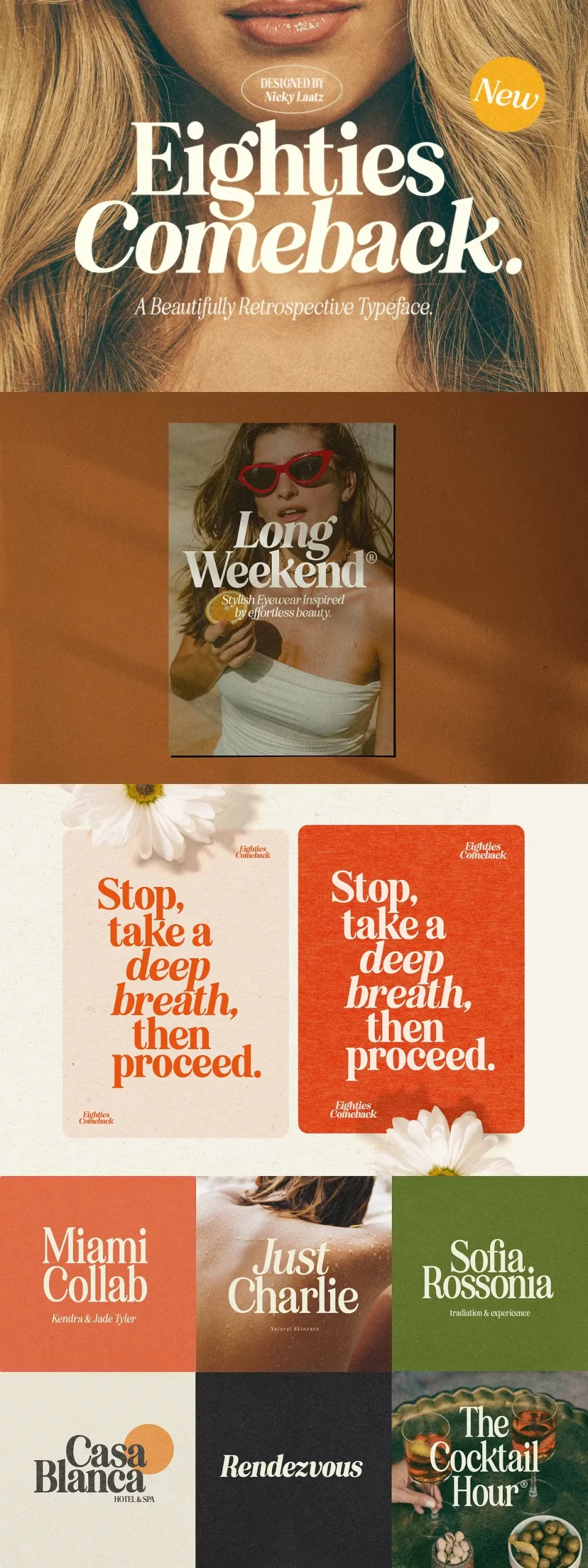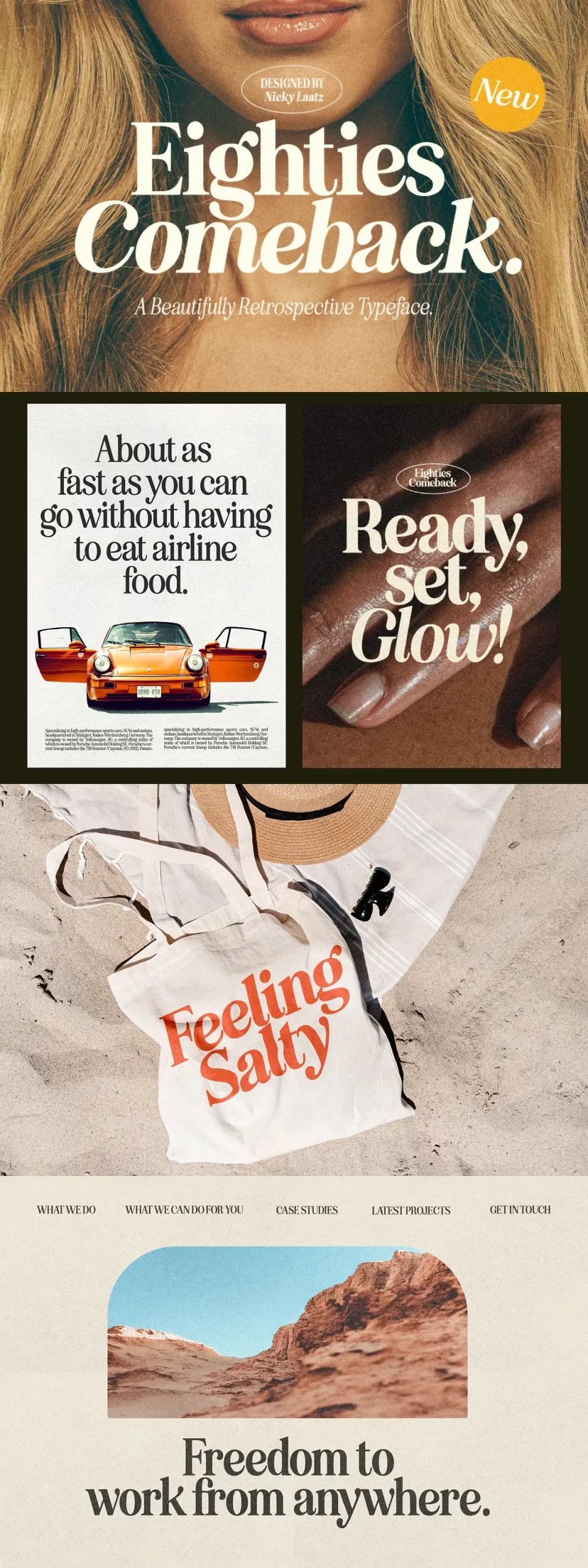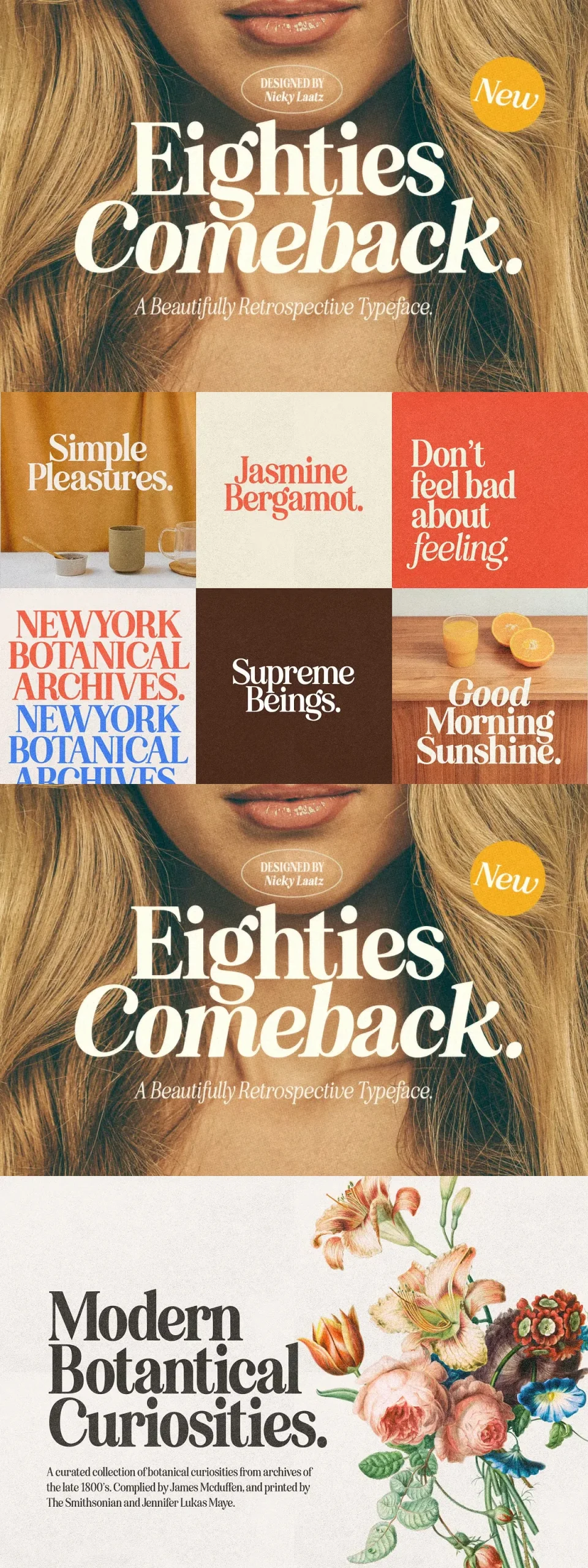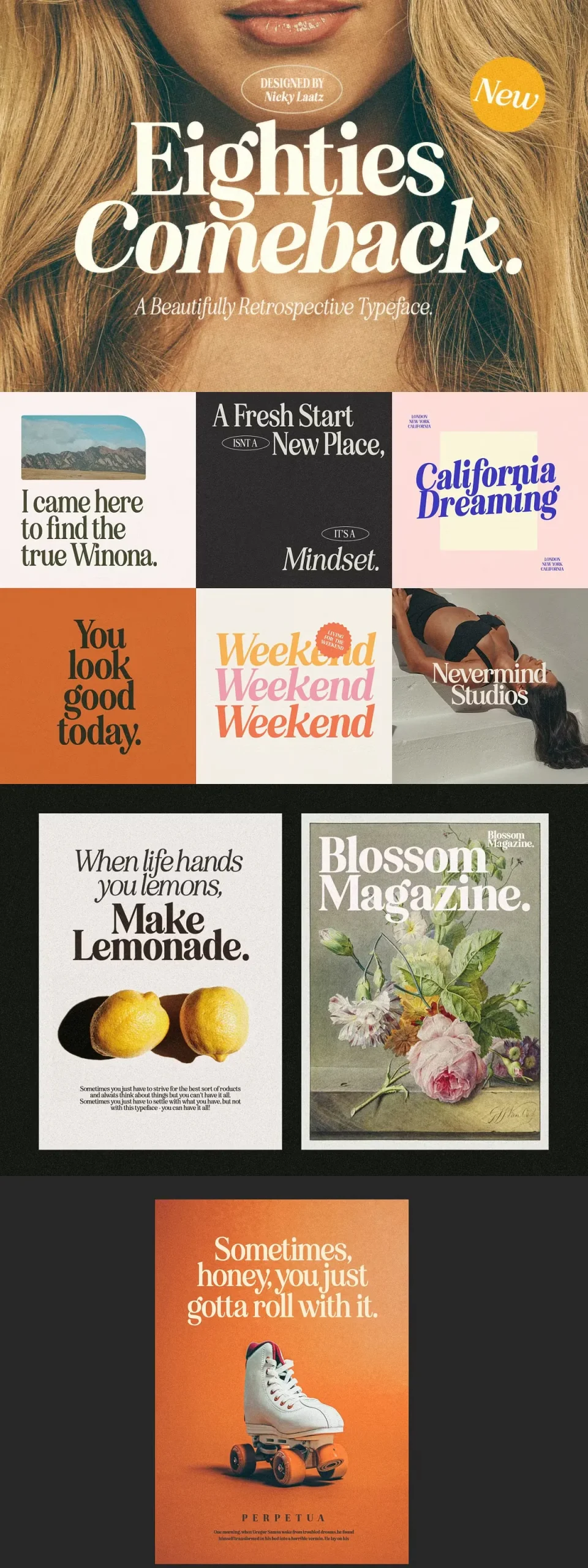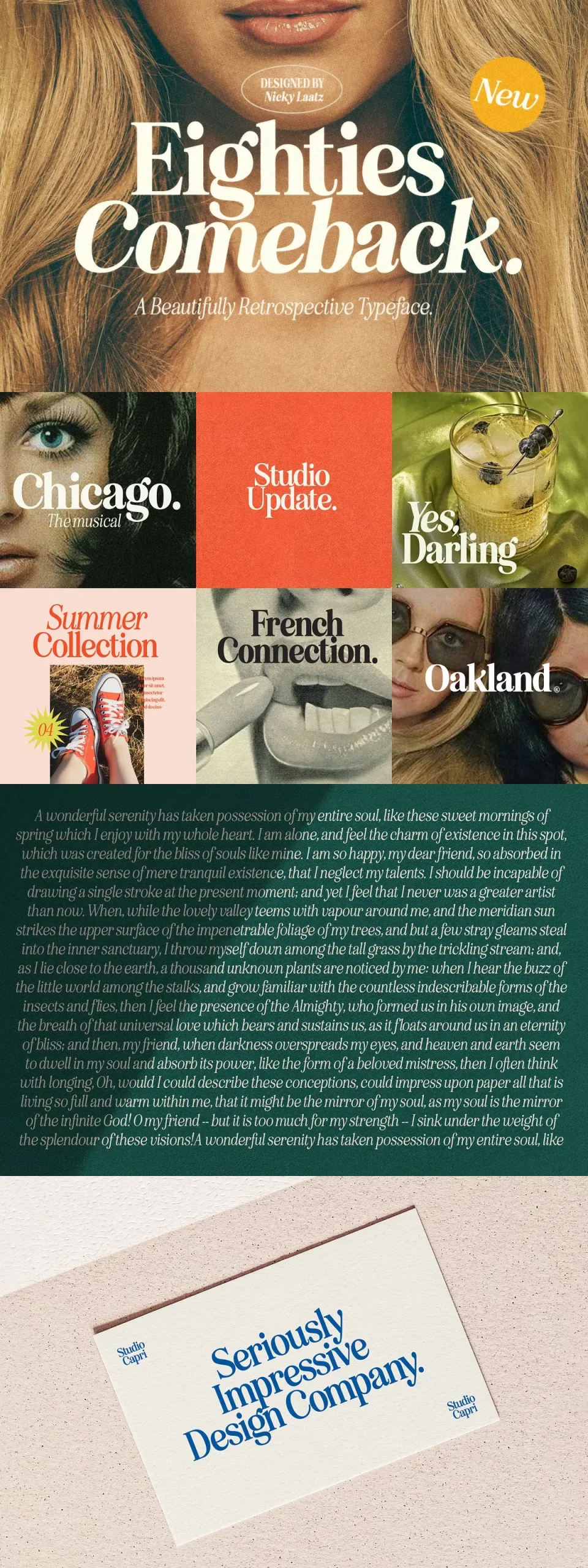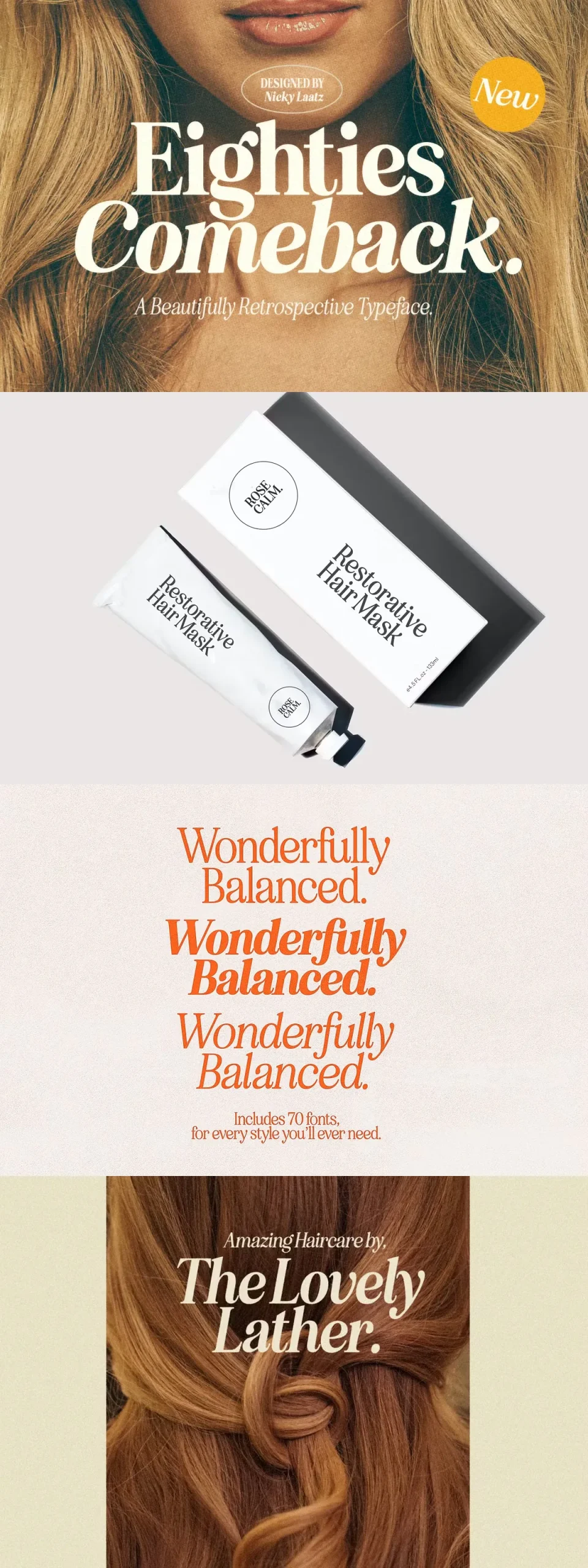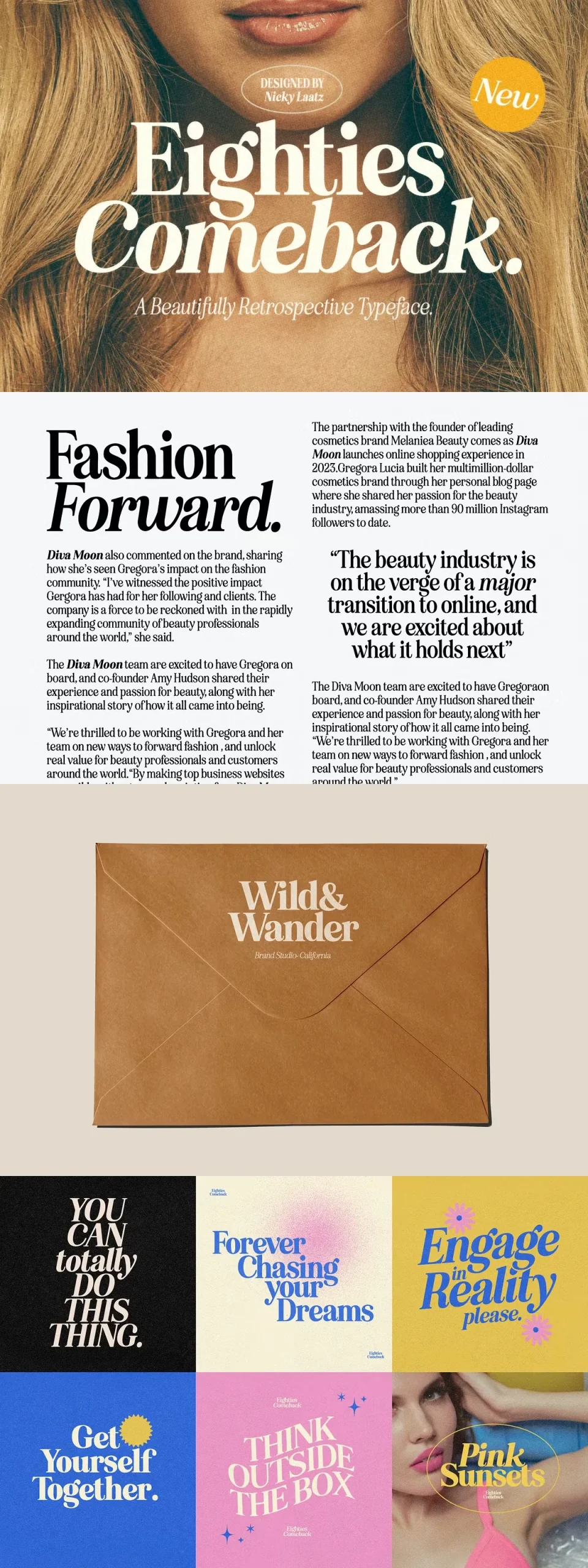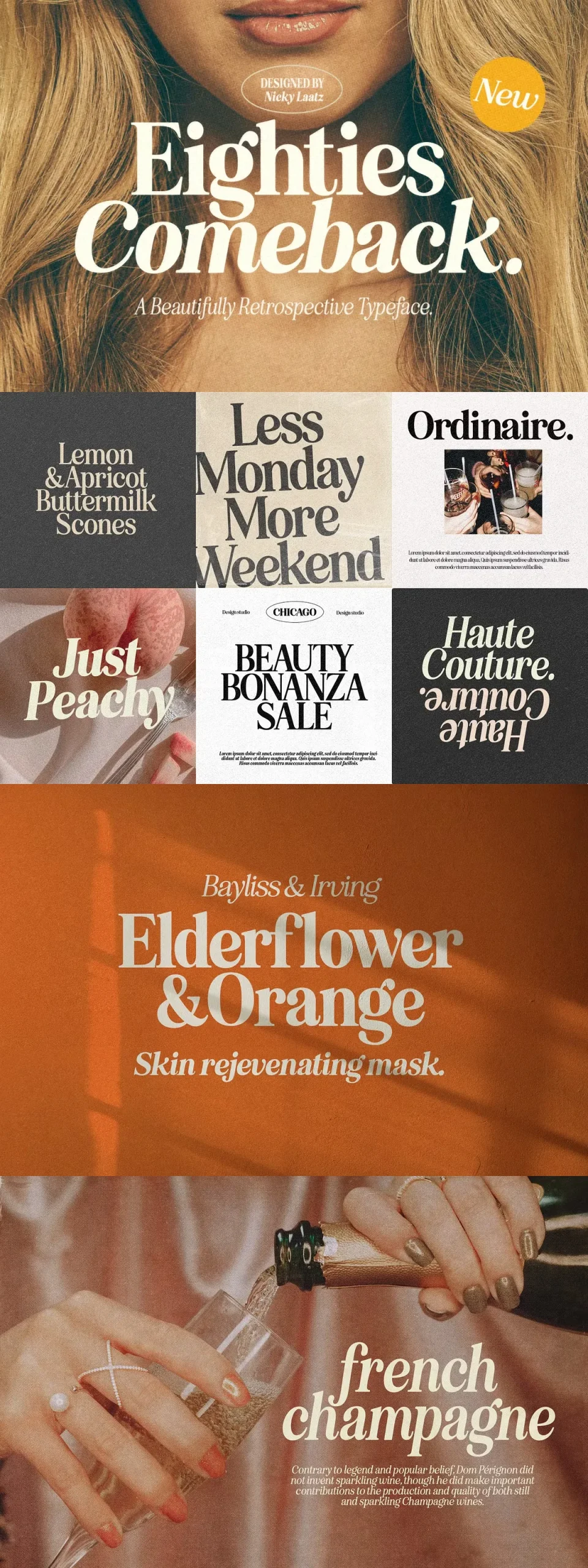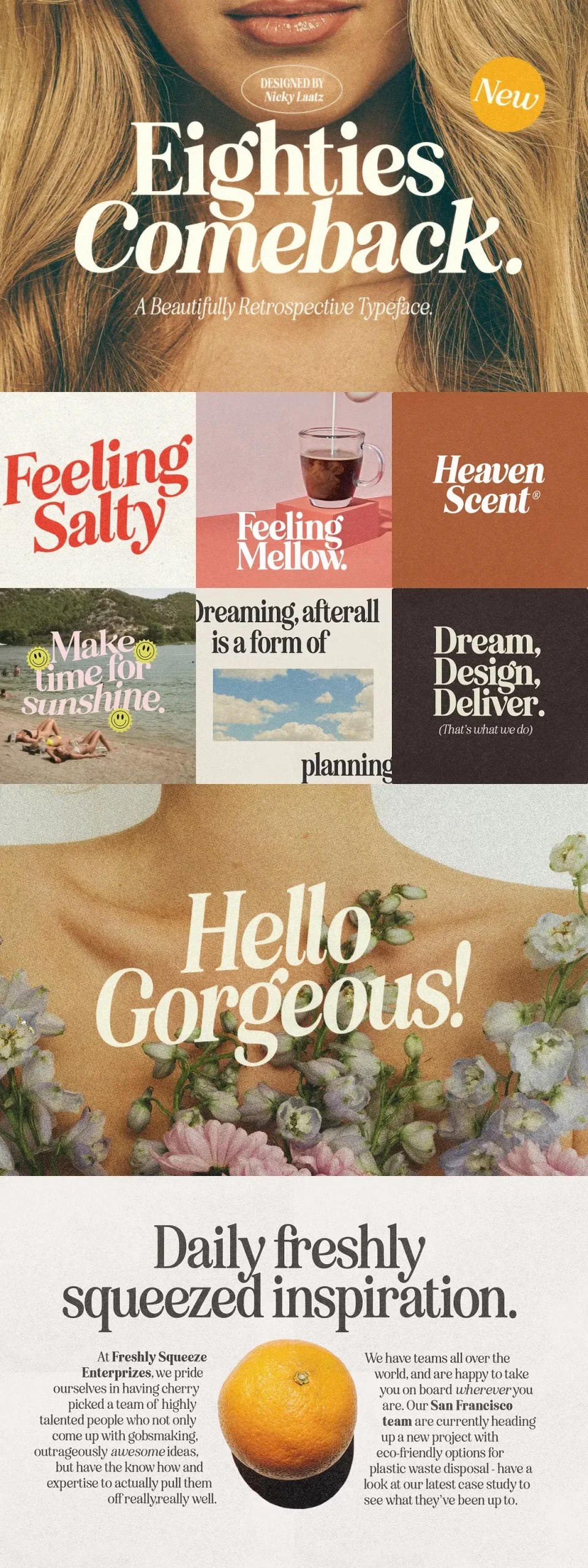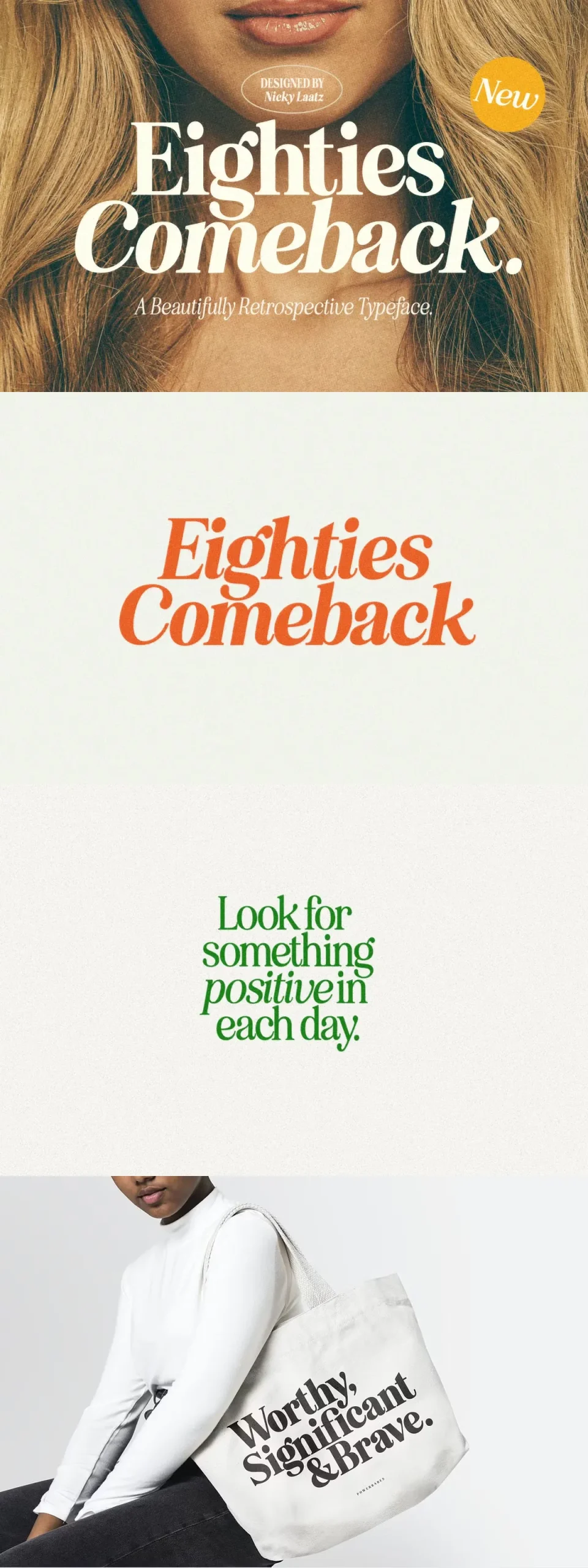
Eighties Comeback Serif (70 fonts)
Say hello to “Eighties Comeback” – A flirtatiously charming 80’s retro-inspired typeface with wonderful versatility given it includes 70 fonts. 2 Handy variable fonts are also included for those who have Adobe Photoshop/Illustrator CC 2020 and up 🙂